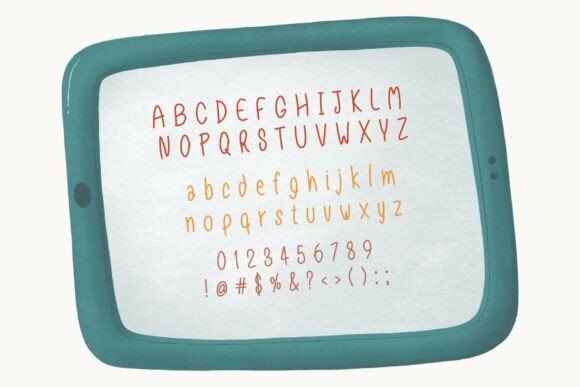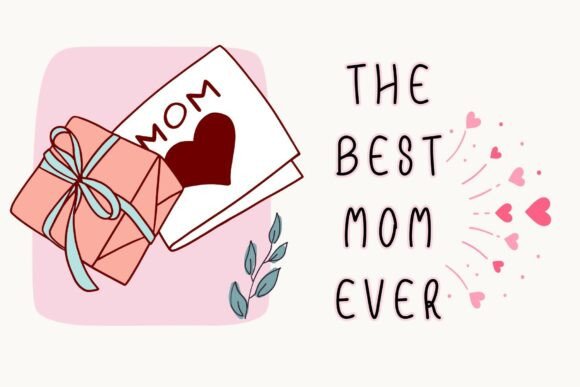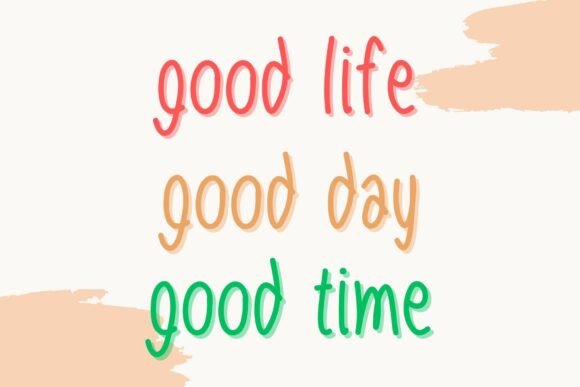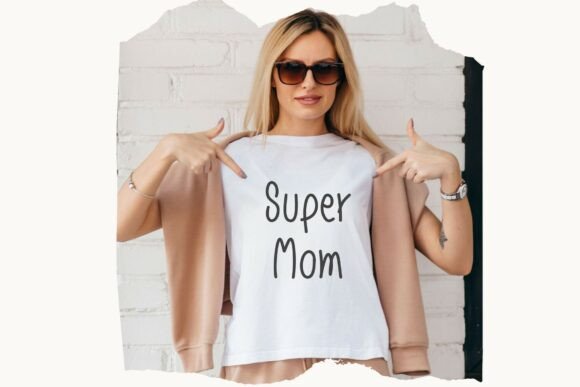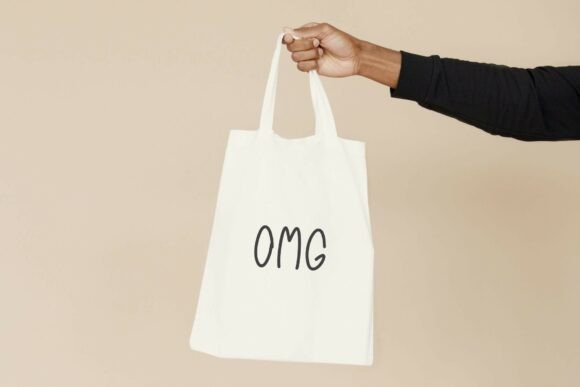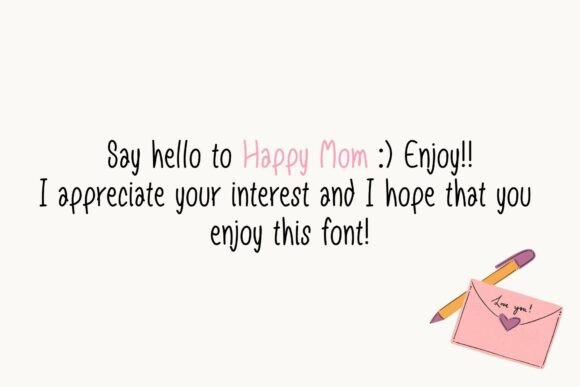
Introducing Happy Mom Font: The Perfect Handwritten Font for Your Creative Projects
Are you a designer, crafter, or DIY enthusiast looking for a unique and playful font to add a personal touch to your projects? Look no further than Happy Mom Font! This charming handwritten font is perfect for a wide range of applications, from digital note-taking and planners to product packaging and logo design.
What is Happy Mom Font?
Happy Mom Font is a carefully crafted handwritten font that exudes warmth and friendliness. Its playful and approachable style makes it ideal for projects that require a personal and creative touch. Whether you’re designing a digital planner, creating a logo, or crafting a banner, Happy Mom Font is sure to bring a smile to your audience’s faces.
Key Features of Happy Mom Font
- Handwritten style: Happy Mom Font boasts a beautiful, handwritten style that adds a touch of personality to any project.
- Versatile: Happy Mom Font is suitable for numerous applications, including digital note-taking, digital planners, quotations, banners, logos, product packaging, titles, headers, menu lists, and more.
- Easy to read: Despite its playful style, Happy Mom Font is easy to read, making it perfect for body text and headings.
Use Cases for Happy Mom Font
Happy Mom Font is an incredibly versatile font that can be used in a variety of projects. Here are some ideas to get you started:
- Digital planners and journals: Add a personal touch to your digital planners and journals with Happy Mom Font.
- Logos and branding: Use Happy Mom Font to create a unique and memorable logo for your business or brand.
- Product packaging: Add a playful touch to your product packaging with Happy Mom Font.
- Banners and signs: Use Happy Mom Font to create eye-catching banners and signs for events, promotions, or sales.
- Social media graphics: Add a personal touch to your social media graphics, such as quote graphics, with Happy Mom Font.
Why Choose Happy Mom Font?
- Unique style: Happy Mom Font has a unique and playful style that will set your projects apart from the crowd.